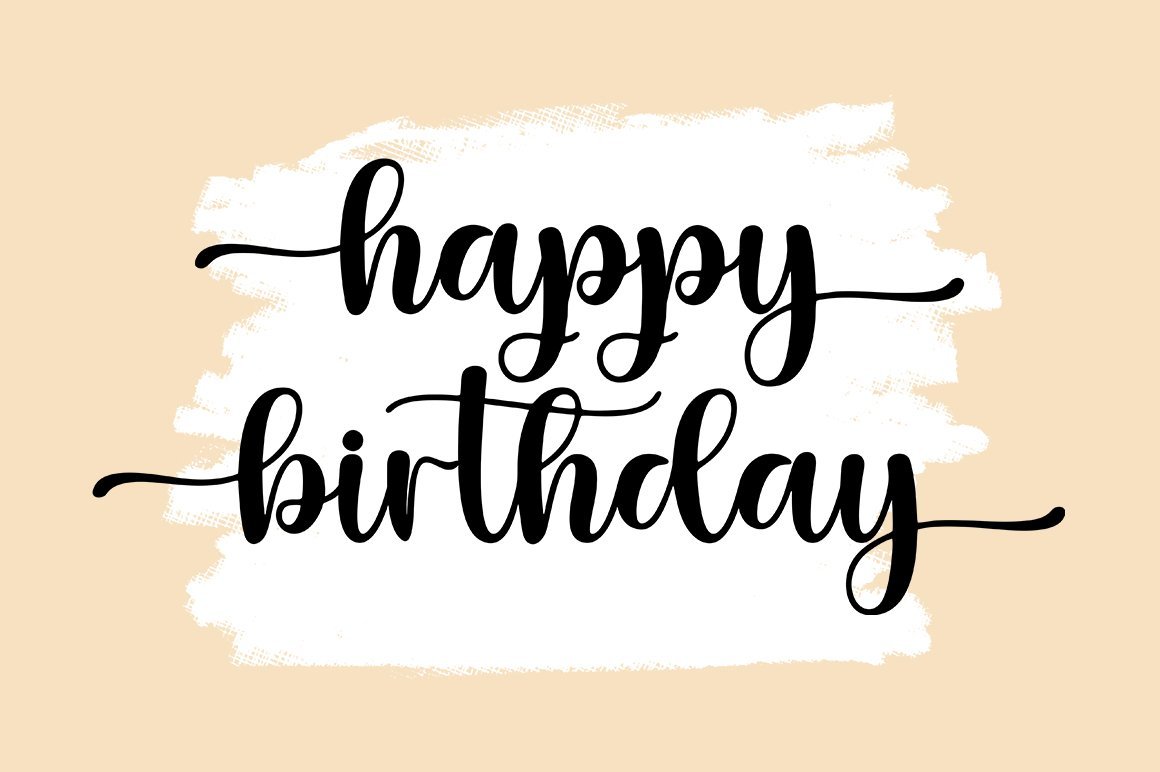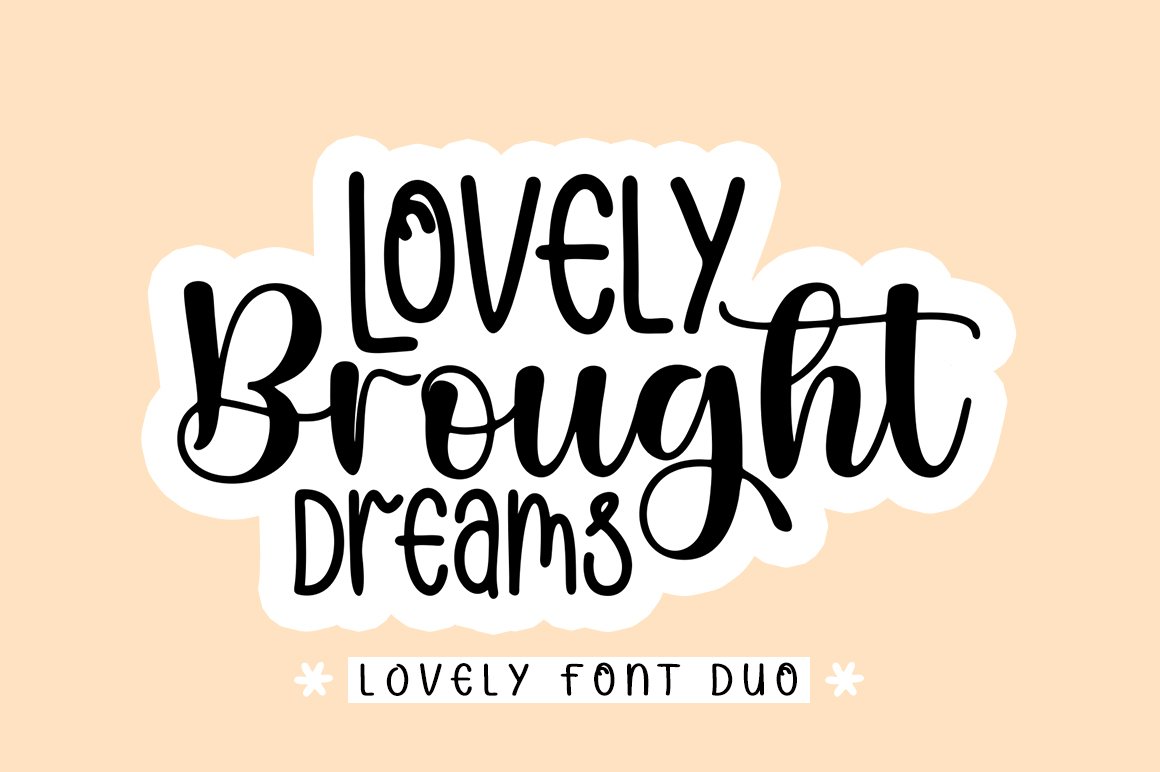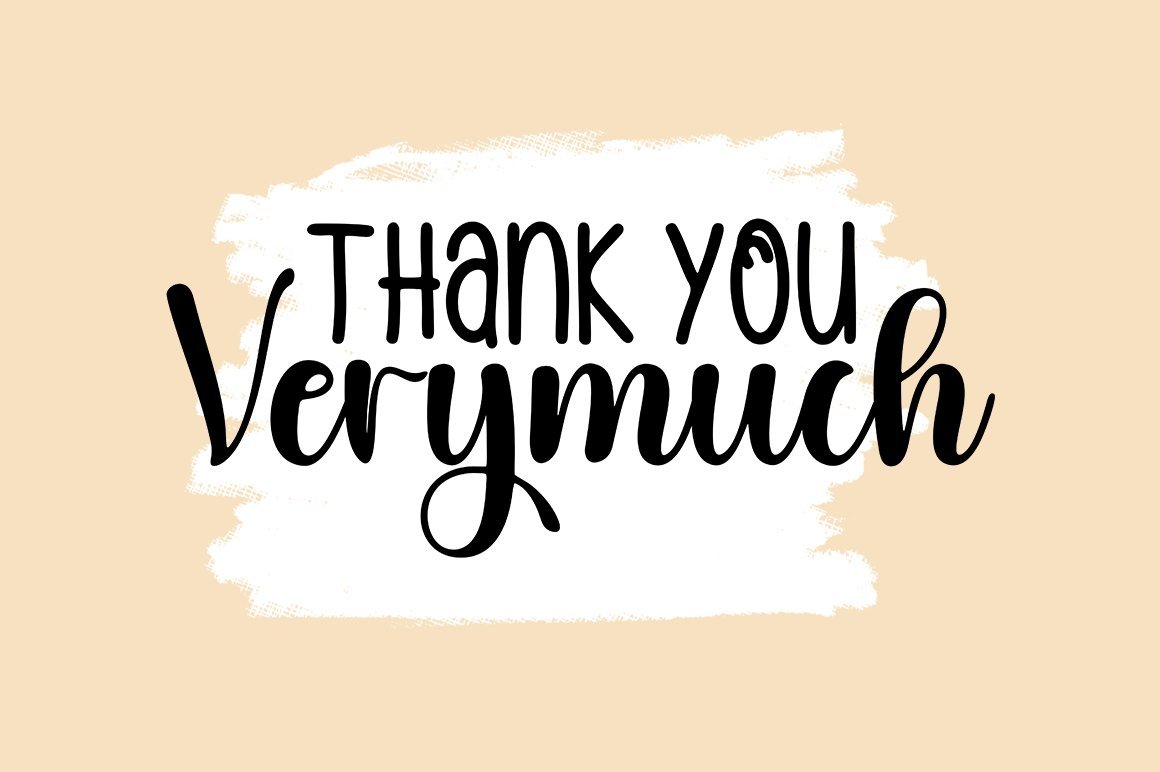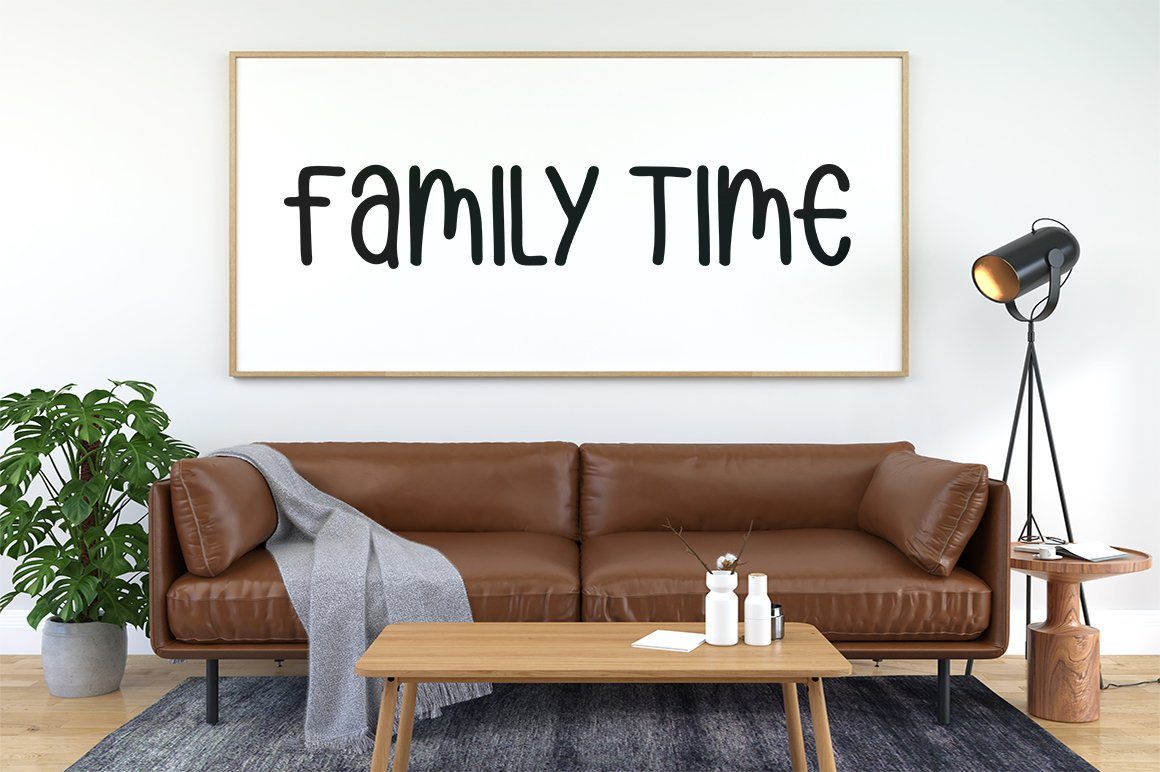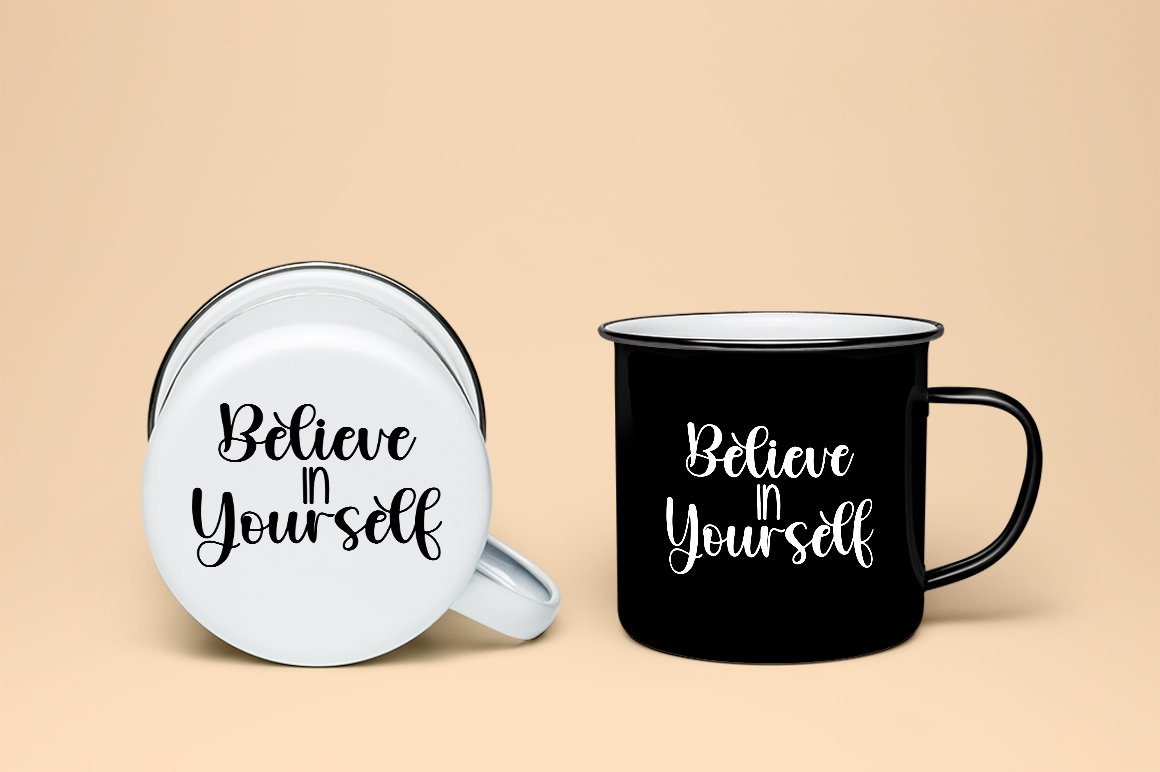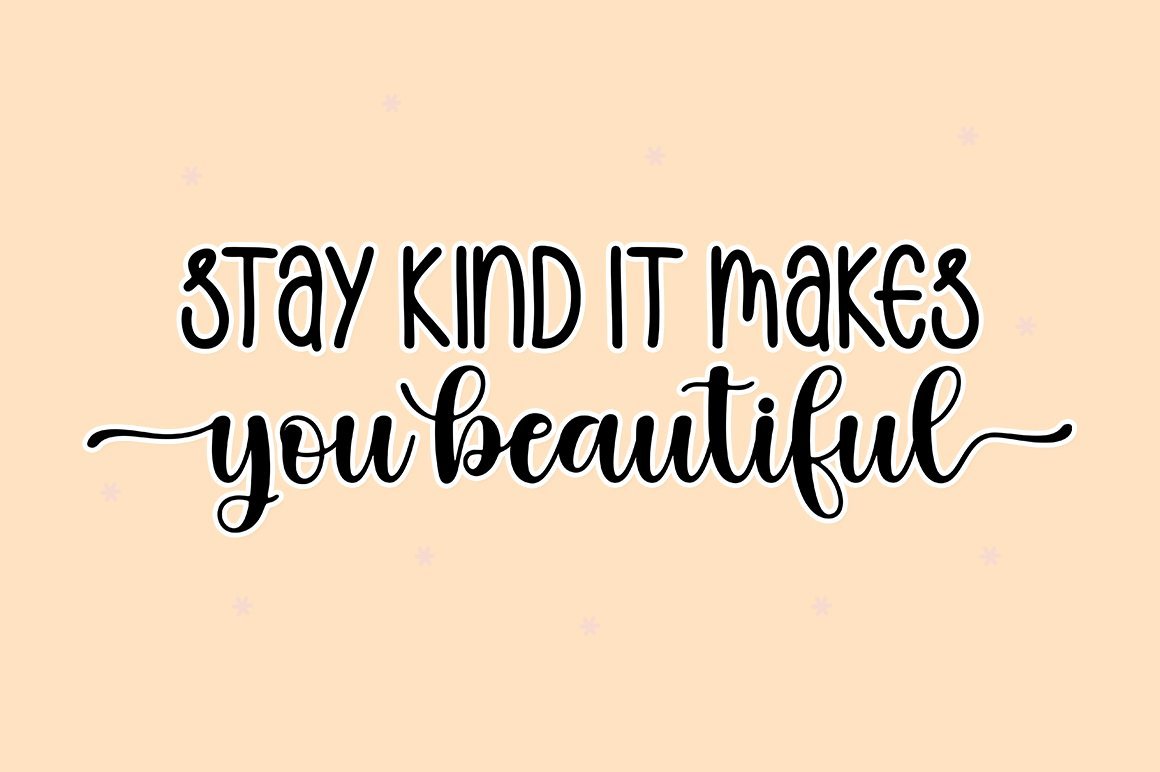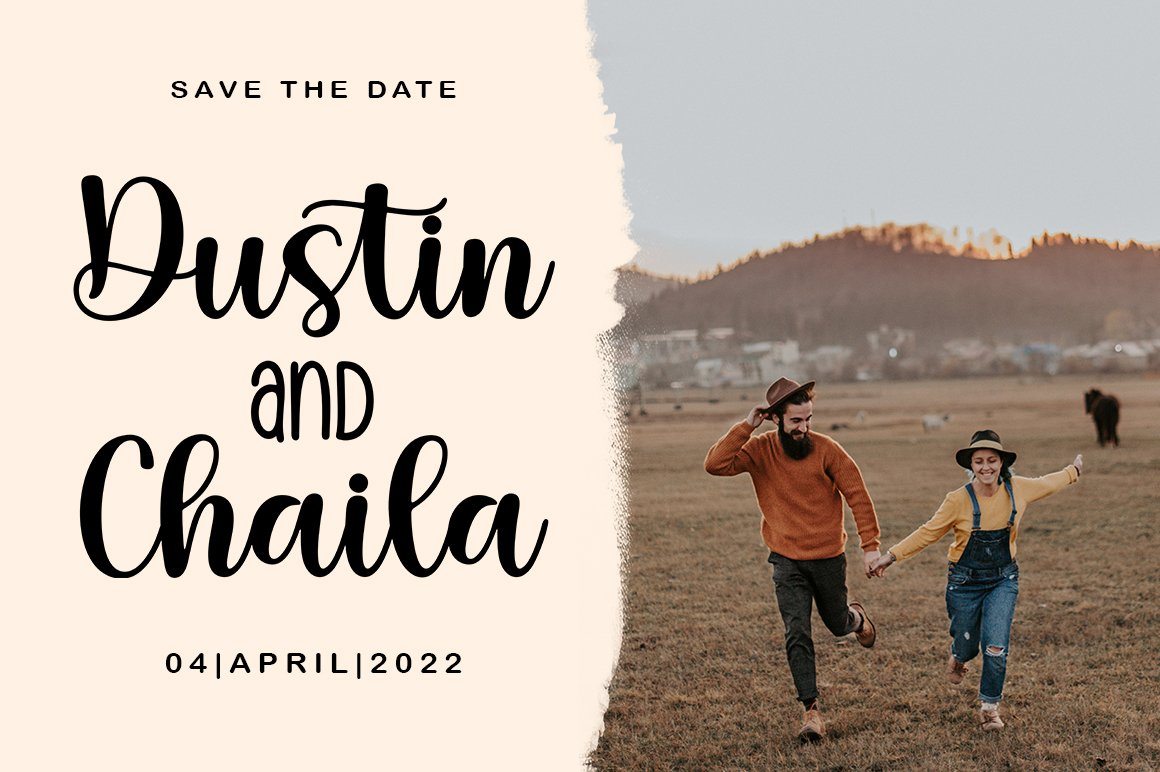
About Lovely Brought Dreams
Lovely Brought Dreams Script and Sans are beautiful and romantic writing fonts. Looks amazing on wedding invitations, thank you cards, quotes, greeting cards, logos, business cards and other designs. This font is PUA encoded which means you can access all the glyphs and sweeps easily! This font includes OpenType features with alternative styles, ligatures, and multiple language support. Files include: Lovely Brought Dreams SCRIPT.OTF Lovely Brought Dreams SCRIPT.TTF Lovely Brought Dreams SANS.OTF Lovely Brought Dreams SANS.TTF To enable the OpenType Stylistic alternative, you need a program that supports OpenType features such as Adobe Illustrator CS, Adobe Indesign & CorelDraw X6-X7, Microsoft Word 2010 or later. There are additional ways to swap/swap, using Character Map (Windows), Nexus Fonts (Windows), Font Book (Mac) or software programs like PopChar (for Windows and Mac). How to access all alternative characters, using Windows Character Map with Photoshop: https://www.youtube.com/watch?v=Go9vacoYmBw How to access all alternative characters using Adobe Illustrator: http://youtu.be/iptSFA7feQ0 How to use the stylish font set in Microsoft Word 2010 or later versions: https://youtu.be/x1A_ilsBsGs Happy Designing!